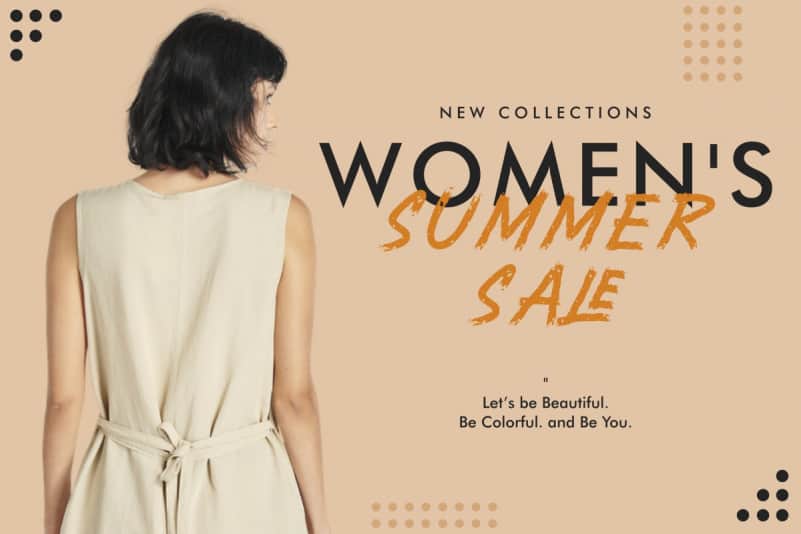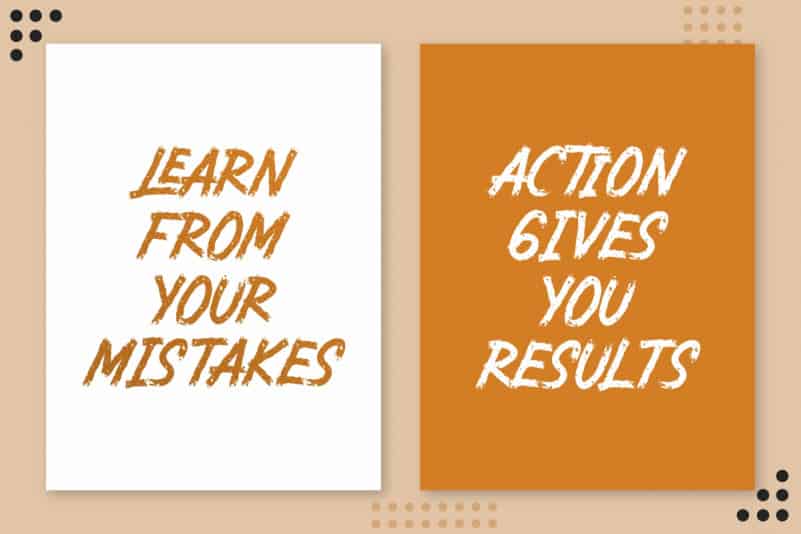
Lockmakers Brush Font
Lockmakers Brush Font is a textured brush font. The style of this grunge font are unique, stylish, classic, horror, sport, race, boxing, vintage and strong brush font.